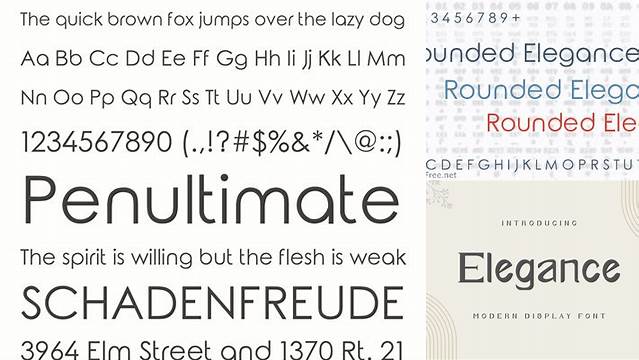
Are you looking to infuse a touch of modern sophistication and gentle charm into your designs? Then, guys, you've come to the right place! In today's digital landscape, typography plays a pivotal role in shaping the overall aesthetic and message of any project. And when it comes to creating a visually appealing and user-friendly design, rounded fonts stand out as a versatile and elegant choice. They offer a unique blend of warmth and clarity, making them perfect for a wide range of applications, from branding and advertising to web design and editorial layouts. This article will dive deep into the world of rounded elegance fonts, exploring their benefits, use cases, and where you can download them for free. So, buckle up and get ready to discover the perfect typeface to elevate your creative endeavors!
What Makes Rounded Fonts So Special?
Rounded fonts possess a unique visual appeal that sets them apart from their more angular counterparts. The gentle curves and soft edges of these fonts evoke a sense of approachability, friendliness, and modernity. This makes them incredibly versatile for a wide array of design projects, where conveying a welcoming and trustworthy image is crucial. Let's delve deeper into the key characteristics that make rounded fonts so special:
- Visual Softness and Warmth: The rounded terminals and smooth strokes of these fonts create a sense of visual comfort. Unlike sharp, pointed serifs or harsh angles, rounded fonts exude a gentle warmth that can make text feel more inviting and less intimidating. This inherent softness is particularly effective in designs that aim to connect with the audience on an emotional level, such as branding for baby products, wellness services, or artisanal goods.
- Modern and Contemporary Aesthetic: Rounded fonts are often associated with a modern and contemporary design aesthetic. Their clean lines and simplified forms align perfectly with the minimalist and user-centric design trends that dominate today's digital world. This makes them an ideal choice for tech startups, innovative brands, and websites that want to project a cutting-edge image.
- Enhanced Readability: Believe it or not, the rounded shapes in these fonts can actually contribute to improved readability, especially in digital environments. The smooth curves help the eye flow more easily from one letter to the next, reducing eye strain and making the text more accessible to a wider audience. This is particularly beneficial for body text in websites, mobile apps, and e-books, where legibility is paramount.
- Versatility Across Design Applications: The beauty of rounded fonts lies in their versatility. They can be seamlessly integrated into a wide range of design applications, from logos and headlines to body text and user interface elements. They work equally well in both print and digital media, making them a valuable asset for any designer's toolkit. Whether you're designing a playful poster, a sophisticated website, or a user-friendly mobile app, a rounded font can add that touch of elegance and approachability you're looking for.
Where to Use Rounded Elegance Fonts: Unleashing the Potential
Now that we understand the unique characteristics of rounded fonts, let's explore the various design scenarios where they truly shine. The versatility of these fonts allows them to be used across a multitude of projects, but some applications are particularly well-suited for their gentle and modern aesthetic. So, where can you unleash the potential of rounded elegance fonts? Let's find out:
- Branding and Logo Design: When it comes to brand identity, the typeface you choose speaks volumes about your company's personality and values. Rounded fonts can be an excellent choice for brands that want to project a friendly, approachable, and trustworthy image. Think of brands in the baby care, food, or wellness industries – a rounded font can help convey a sense of care, comfort, and naturalness. In logo design, a rounded typeface can create a memorable and visually appealing mark that resonates with your target audience. The softness of the curves can also make a logo feel more organic and less corporate, which can be a great advantage for smaller businesses or startups.
- Website and User Interface Design: In the digital realm, user experience is king. Rounded fonts can significantly enhance the readability and overall aesthetic of websites and user interfaces (UI). Their smooth letterforms make reading on screens easier and more enjoyable, reducing eye strain and improving user engagement. They also contribute to a clean and modern UI, making websites and apps feel more intuitive and user-friendly. From headlines and navigation menus to body text and button labels, rounded fonts can be seamlessly integrated into various elements of a website or app design.
- Marketing and Advertising Materials: The visual appeal of rounded fonts makes them a great choice for marketing and advertising campaigns. Whether you're designing posters, brochures, social media graphics, or email newsletters, a rounded typeface can help capture attention and convey your message in a clear and engaging way. Their friendly and approachable nature can make your marketing materials feel more personal and relatable, which can lead to higher conversion rates and improved brand recognition. Imagine a poster for a family-friendly event or a social media ad for a new product – a rounded font can add that touch of warmth and excitement that resonates with potential customers.
- Editorial Design: Rounded fonts are not just for digital applications; they can also add a touch of elegance and readability to print materials like magazines, books, and brochures. They work particularly well for body text, where legibility is crucial. The smooth curves and balanced letterforms make long passages of text easier to read, reducing eye fatigue and improving comprehension. In headlines and subheadings, a rounded font can create a visually appealing contrast with other typefaces, adding a touch of sophistication and modernity to your editorial layouts.
Conclusion: Embrace the Elegance of Rounded Fonts
In conclusion, rounded elegance fonts offer a unique blend of modernity, warmth, and readability, making them a valuable asset for any designer. Whether you're working on branding, website design, marketing materials, or editorial layouts, these fonts can add a touch of sophistication and approachability to your projects. With a plethora of free download resources available, there's no reason not to explore the world of rounded fonts and discover the perfect typeface for your next creative endeavor. So, go ahead, embrace the elegance of rounded fonts and elevate your designs to new heights!